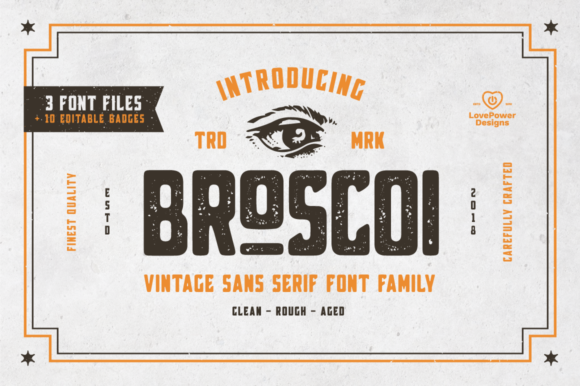
The Broscoi Family Font: A Timeless Choice for Creative Projects
I’ll never forget the design struggle I faced while working on a vintage-themed poster project. My client wanted a font that was both refined and nostalgic, but I was coming up empty-handed. That’s when I stumbled upon the Broscoi Family Font, and it instantly became my go-to choice. With its unique characteristics and timeless appeal, it’s been a game-changer for my design projects ever since.
- ✨ Unique and distinct characteristics that set it apart from other display fonts
- ✅ Strong timeless appeal that works well for a variety of design projects
- 💥 Perfect for creating eye-pleasing typographic designs, posters, logos, and magazine prints
- 🎨 Versatile and refined aesthetic that’s suitable for both digital and print projects
While the Broscoi Family Font is an excellent choice, there are a few things to keep in mind:
- ⚠️ Some users may find the font a bit too ornate for certain projects, such as body text or small captions
- 🤔 Limited availability of certain OpenType features, such as ligatures or swashes, may be a drawback for some designers
The Backstory Behind Broscoi
The Broscoi Family Font was designed with the goal of creating a unique and timeless display font that would evoke a sense of nostalgia and refinement. Inspired by classic typography and vintage design, the font’s creator aimed to craft a font that would be both elegant and attention-grabbing. With its distinctive characteristics and versatile aesthetic, the Broscoi Family Font has become a popular choice among designers and creative hobbyists.
Q: What type of projects is the Broscoi Family Font best suited for?
A: The Broscoi Family Font is perfect for designing posters, logos, t-shirt prints, magazine covers, and other projects that require a refined yet vintage aesthetic.
Q: Is the Broscoi Family Font available in different weights or styles?
A: Yes, the Broscoi Family Font comes in various weights and styles, allowing you to experiment with different looks and feels.